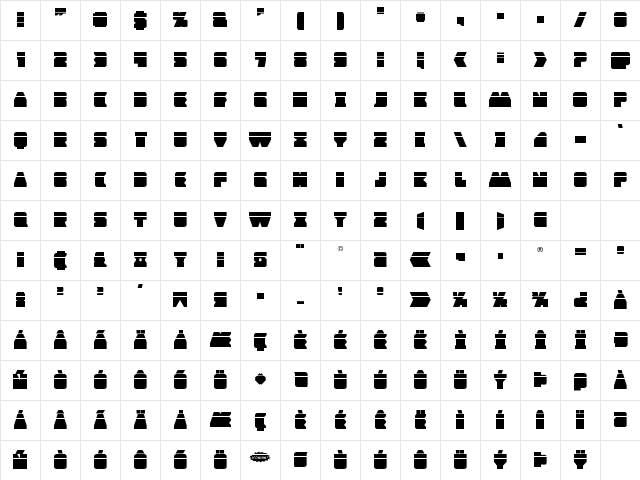
Complete Contour of Duty Laser Regular glyph index. Displaying only characters natively supported by Contour of Duty Laser Regular font.
Contour of Duty Laser is a composed and adaptable typeface that performs quietly and consistently across a wide range of design contexts.